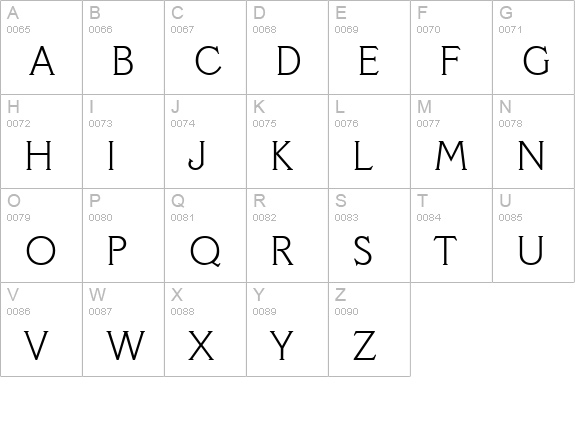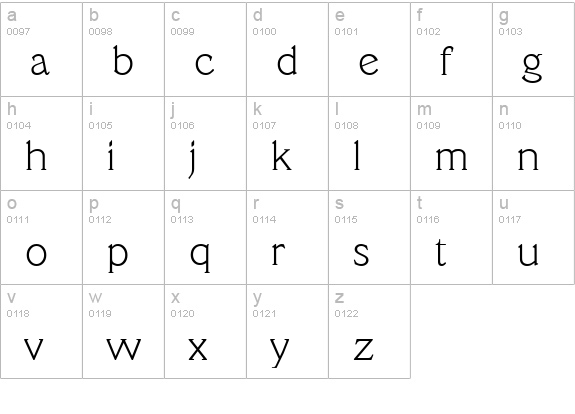
VeracruzSerial-Xlight-Regular is the standard, neutral variant in the VeracruzSerial typeface family \xE2\x80\x94 well suited to general body text, paragraphs, and standard typographic work.
VeracruzSerial-Xlight-Regular is a sleek and elegant font that exudes modern sophistication. With its clean lines and contemporary design, this typeface is perfect for adding a touch of class to any project. The light weight of the font gives it a delicate and airy appearance, making it ideal for use in headings, titles, and other display settings. What makes VeracruzSerial-Xlight-Regular even more appealing is that it is available for free download at FontsMarket.com. This means that you can easily access this stylish font without any cost, making it a valuable addition to your font collection. Whether you're working on a professional design project or simply want to elevate your personal creations, VeracruzSerial-Xlight-Regular is a versatile and eye-catching choice that will surely impress.